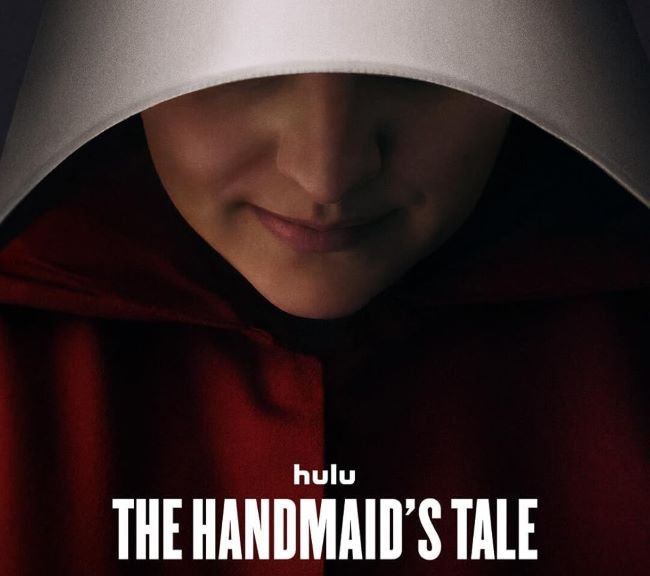
The Handmaid’s Tale Font is a bold condensed newspaper display font — likely Daily Tabloid JNL — used across the Hulu series adapting Margaret Atwood’s 1985 dystopian novel, which premiered in 2017 and follows June Osborne’s survival and resistance within Gilead, a totalitarian theocracy built on the systematic subjugation of women.
The typeface’s stark, authoritative character mirrors the show’s chilling visual palette of red cloaks and white wings — institutional typography in service of a regime that uses the language of order and tradition to legitimise oppression. A free alternative is available.